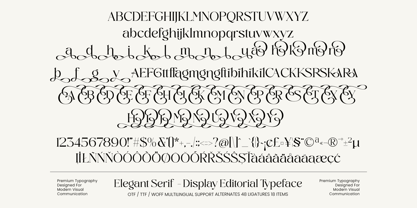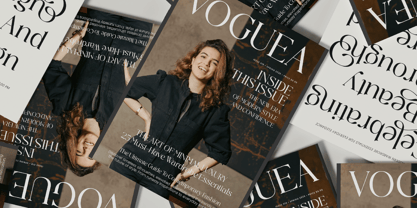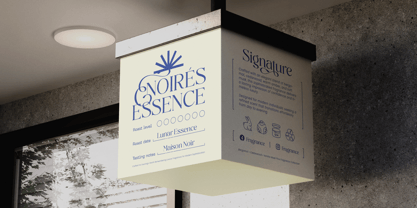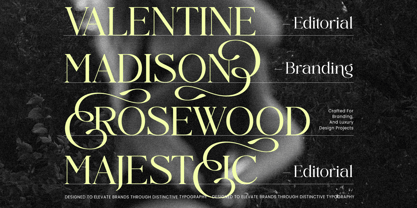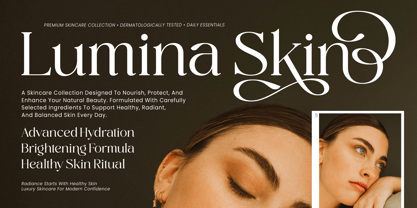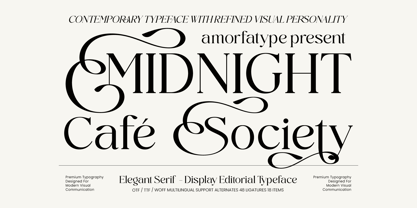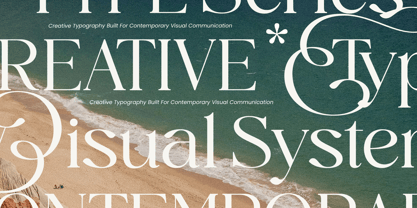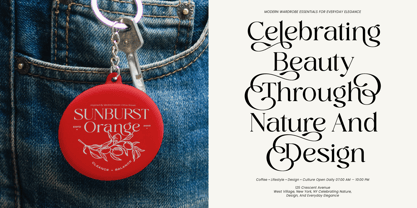
Midnight Cafe Society
by Amorfa Type
The Midnight Cafe Society Font Family was designed by Shiddiq Roihan and published by Amorfa Type. Midnight Cafe Society contains 2 styles and family package options. More about this family
Midnight Cafe Society is an elegant serif display typeface crafted for contemporary editorial design, luxury branding, and sophisticated visual communication. Featuring graceful curves, refined contrast, and expressive decorative details, this typeface brings a timeless sense of elegance while maintaining a modern editorial presence.
Inspired by high-end fashion magazines, luxury beauty campaigns, boutique branding, and classic editorial typography, Midnight Cafe Society is designed to create beautiful headlines, memorable logos, premium packaging, and visually captivating layouts